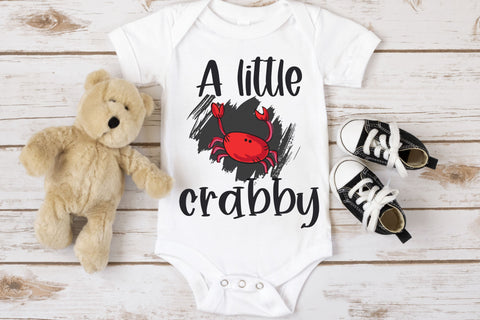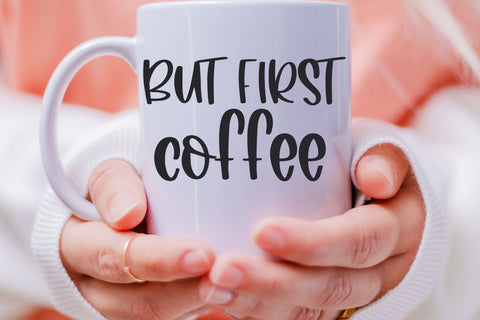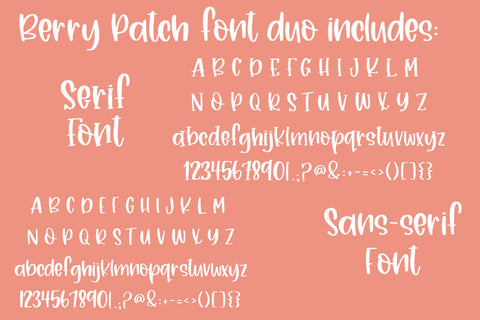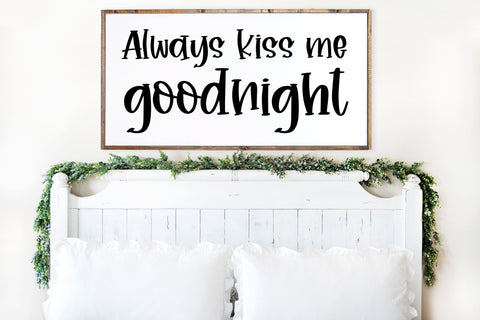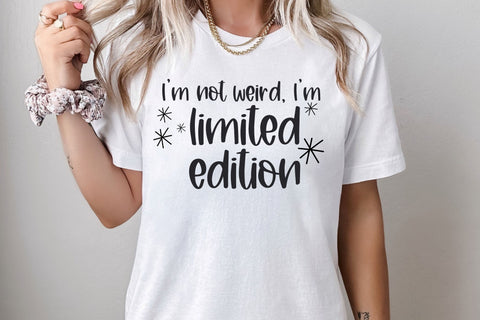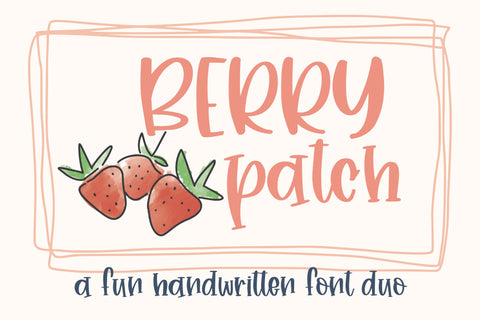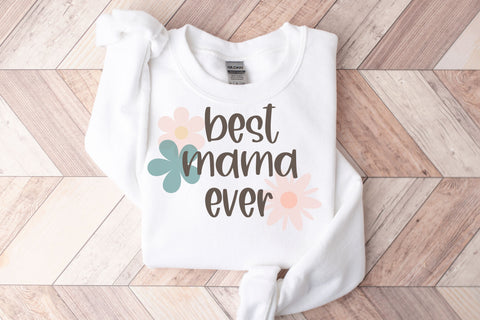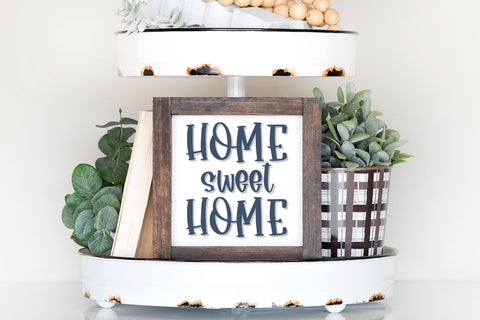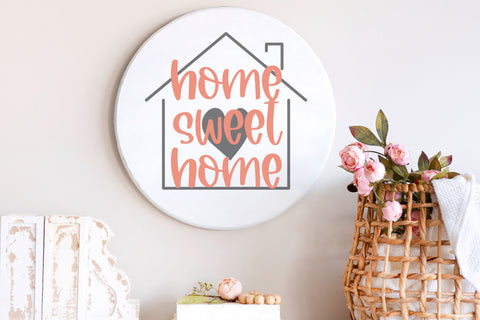
Berry Patch, farmhouse handwritten font duo for cricut
Introducing Berry Patch Font Duo, a set of farmhouse handwritten fonts for Cricut and more, perfect for all your creative projects! With its elegant curves and smooth strokes, our cute script font brings a delightful touch to invitations, greeting cards, and personalized crafts. Our handwriting font is compatible with SVGs, Goodnotes, Procreate, and many other programs. Transform your designs into stunning works of art with this versatile cursive handwriting, the ultimate choice for anyone seeking a captivating and expressive typeface for their projects.